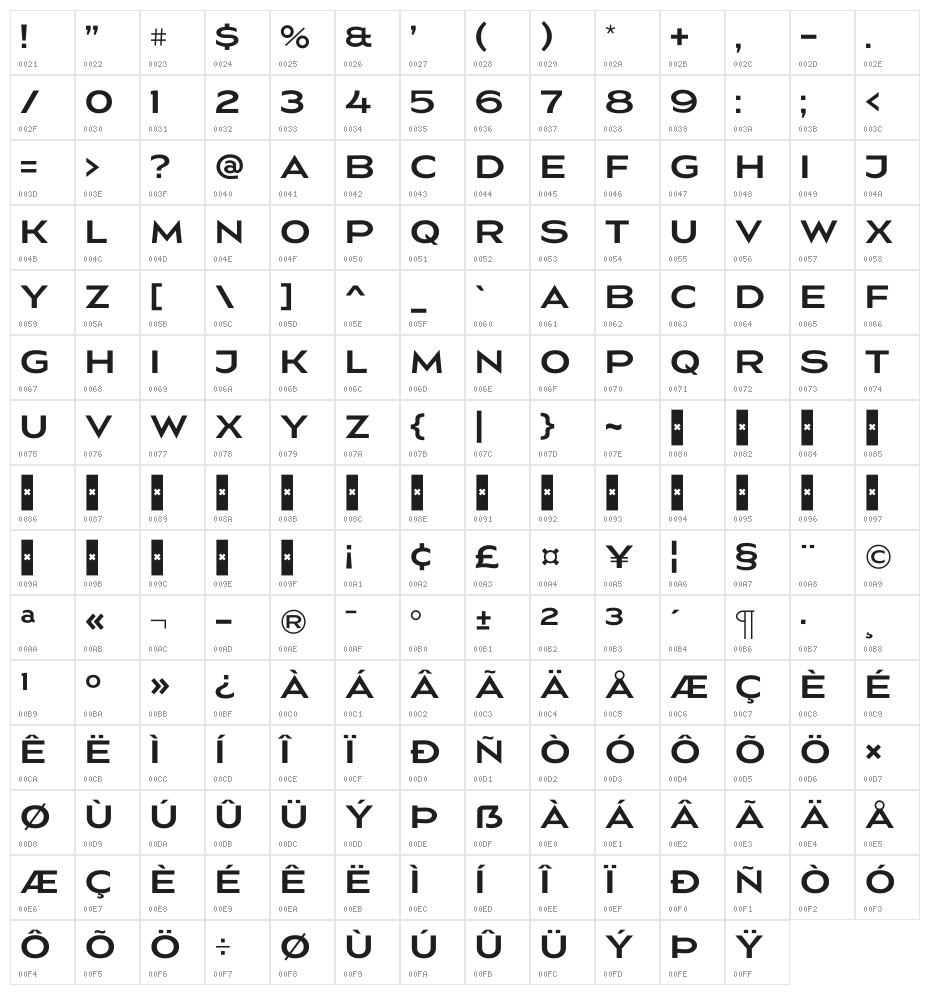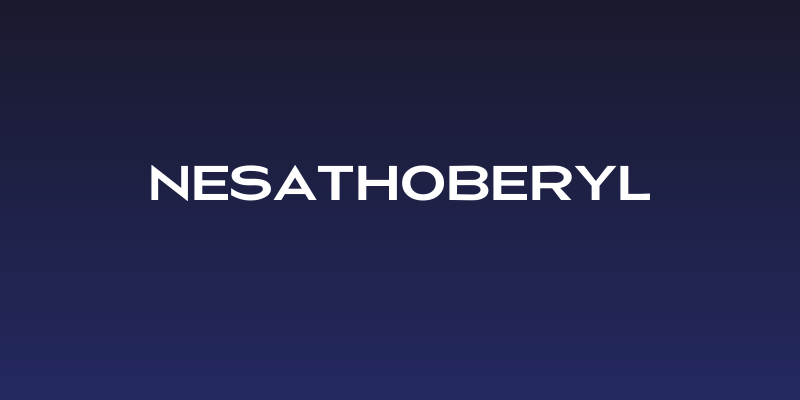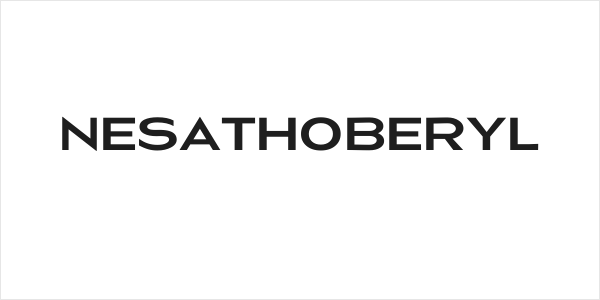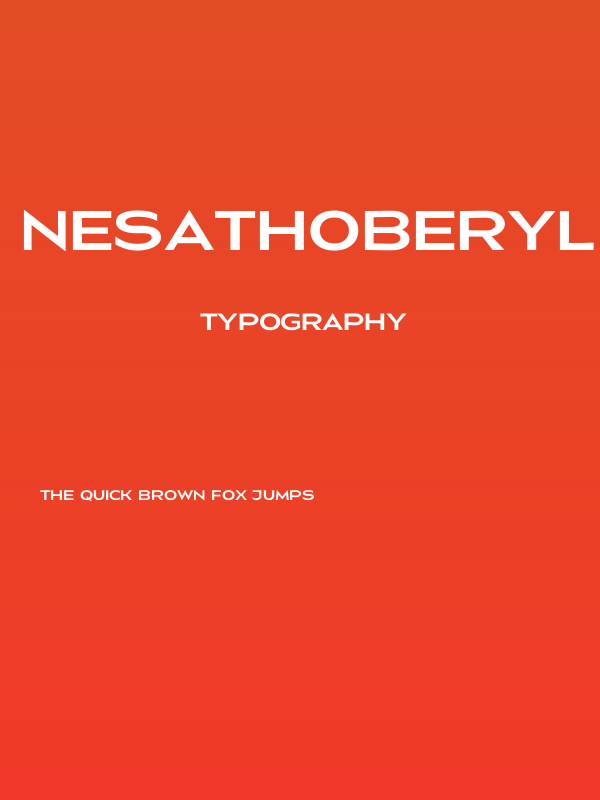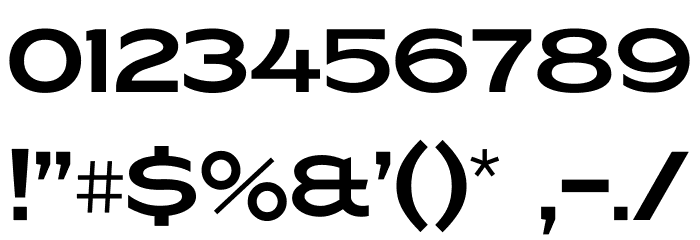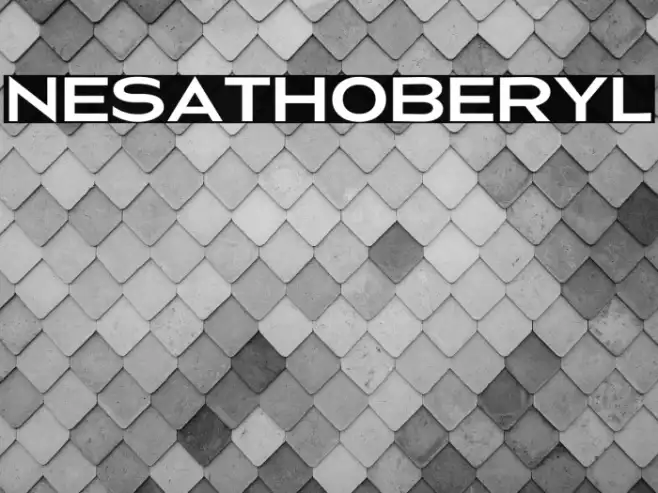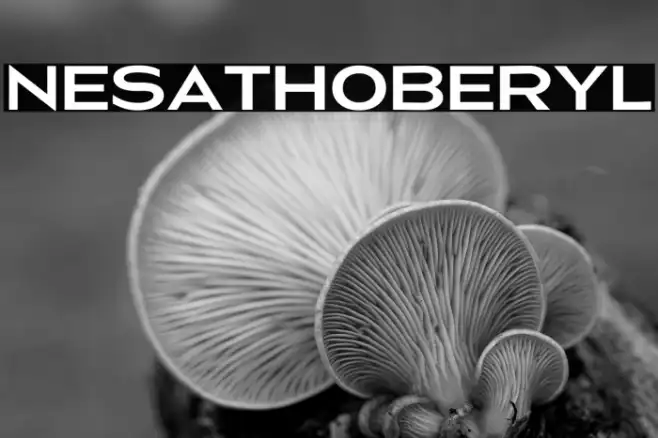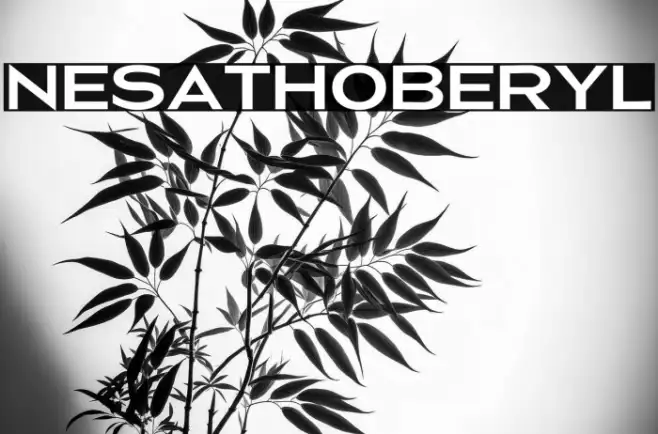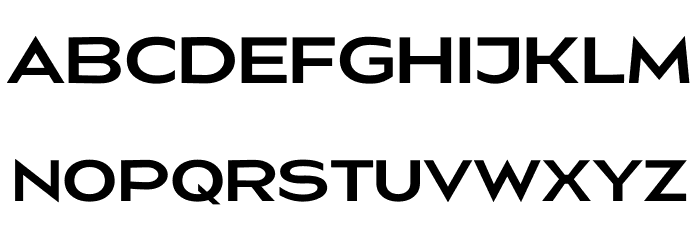
NesathoBeryl Font
NesathoBeryl Description
This font features a bold and modern sans-serif design with clean, straight lines and a geometric structure. The uppercase letters are uniform in height, creating a cohesive and balanced appearance. The lowercase letters maintain the same geometric style, offering a seamless transition between cases. The numerals are clear and easily distinguishable, matching the overall aesthetic of the font. Special characters are well-integrated, ensuring versatility in various applications. The font's design is both functional and stylish, making it suitable for a wide range of uses.